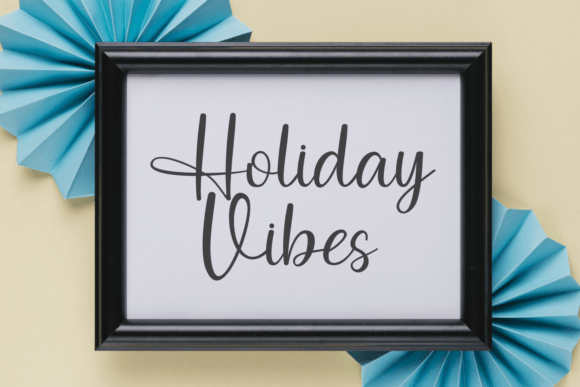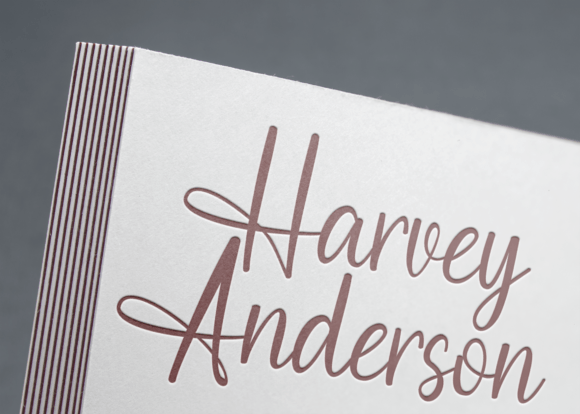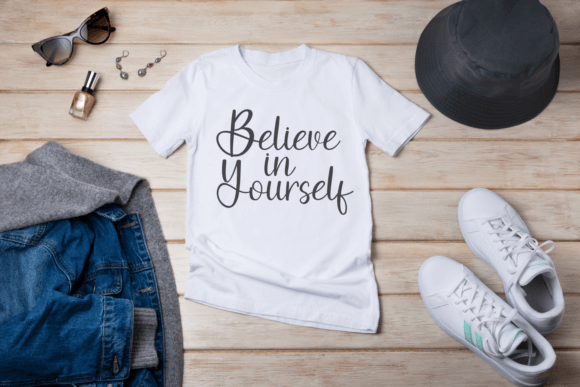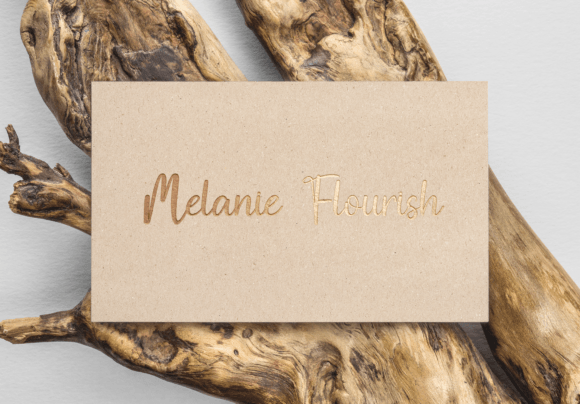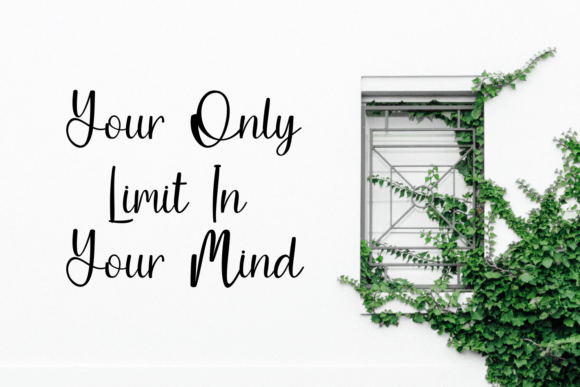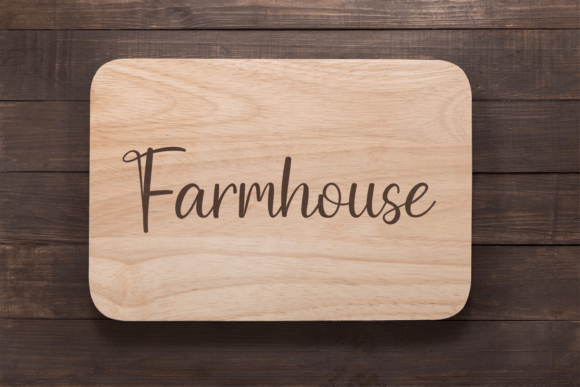
The Quest for the Perfect Font: How Bright Tropical Stole My Heart
I’ll never forget the time I was working on a project for a client’s tropical-themed party invitations. I had all the design elements ready – the colors, the graphics, the overall aesthetic – but I was stuck on finding the perfect font. I wanted something that would evoke the feeling of a sunny beach vacation, something that would make my client’s guests feel like they’re sipping margaritas on the beach. That’s when I stumbled upon Bright Tropical, a cute and simple handwritten font that would change the game for me.
First Impressions: A Love Letter to Bright Tropical
As soon as I saw Bright Tropical, I knew I had found what I was looking for. Its authentic, handwritten look added a personal and realistic feel to my designs. I was in love! But what really sealed the deal was when I discovered that it was PUA-encoded, which means I could access all of the glyphs and swashes with ease. No more tedious font substitutions or complicated workarounds – Bright Tropical had it all.
- ✨ Simple yet effective design that’s perfect for chalkboard quotes and teaching materials
- ✅ PUA-encoded for easy access to glyphs and swashes
- 💕 Authentic, handwritten look that adds a personal touch to designs
- 📚 Highly versatile and can be used for a wide range of projects
- 🤔 Limited language support – best used for English or languages with similar character sets
- ⚠️ Some users may find the font too casual or informal for certain projects
The Story Behind Bright Tropical: A Designer Inspiration
Bright Tropical was designed with the intention of creating a font that would evoke the feeling of a tropical paradise. The designer wanted to create a font that would be perfect for chalkboard quotes, teaching materials, and other designs that required a personal and realistic touch. With its simple yet effective design, Bright Tropical has become a favorite among designers and crafters alike.
Q: What is Bright Tropical?
A: Bright Tropical is a cute and simple handwritten font designed for chalkboard quotes, teaching materials, and other designs.
Q: Is Bright Tropical PUA-encoded?
A: Yes, Bright Tropical is PUA-encoded, which means you can access all of the glyphs and swashes with ease.